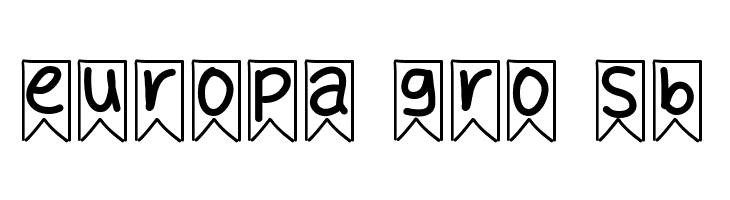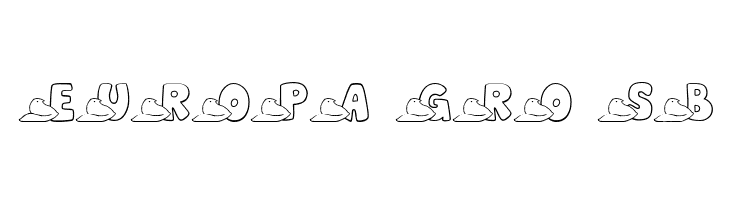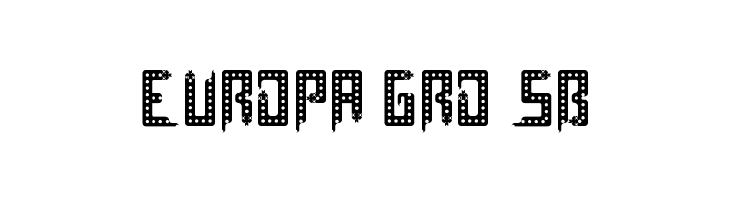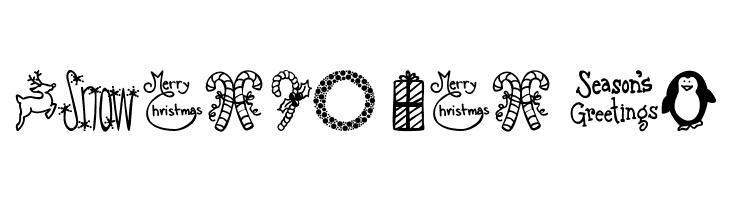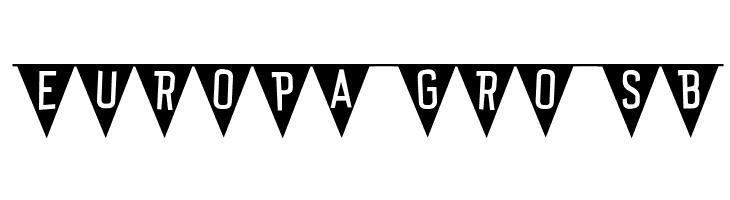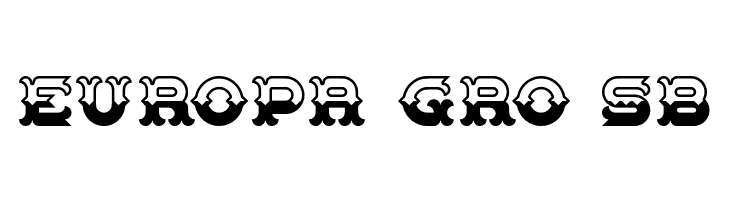
A whimsical, snow-themed decorative font with intricate details.
A playful, peep-themed decorative font ideal for Easter projects.
A decorative set of holiday-themed symbols and characters.
A decorative font with playful Christmas-themed doodles.
A bold, geometric font with characters enclosed in triangular bunting shapes.
A bold, decorative font with intricate patterns and a festive, carnival-inspired style.